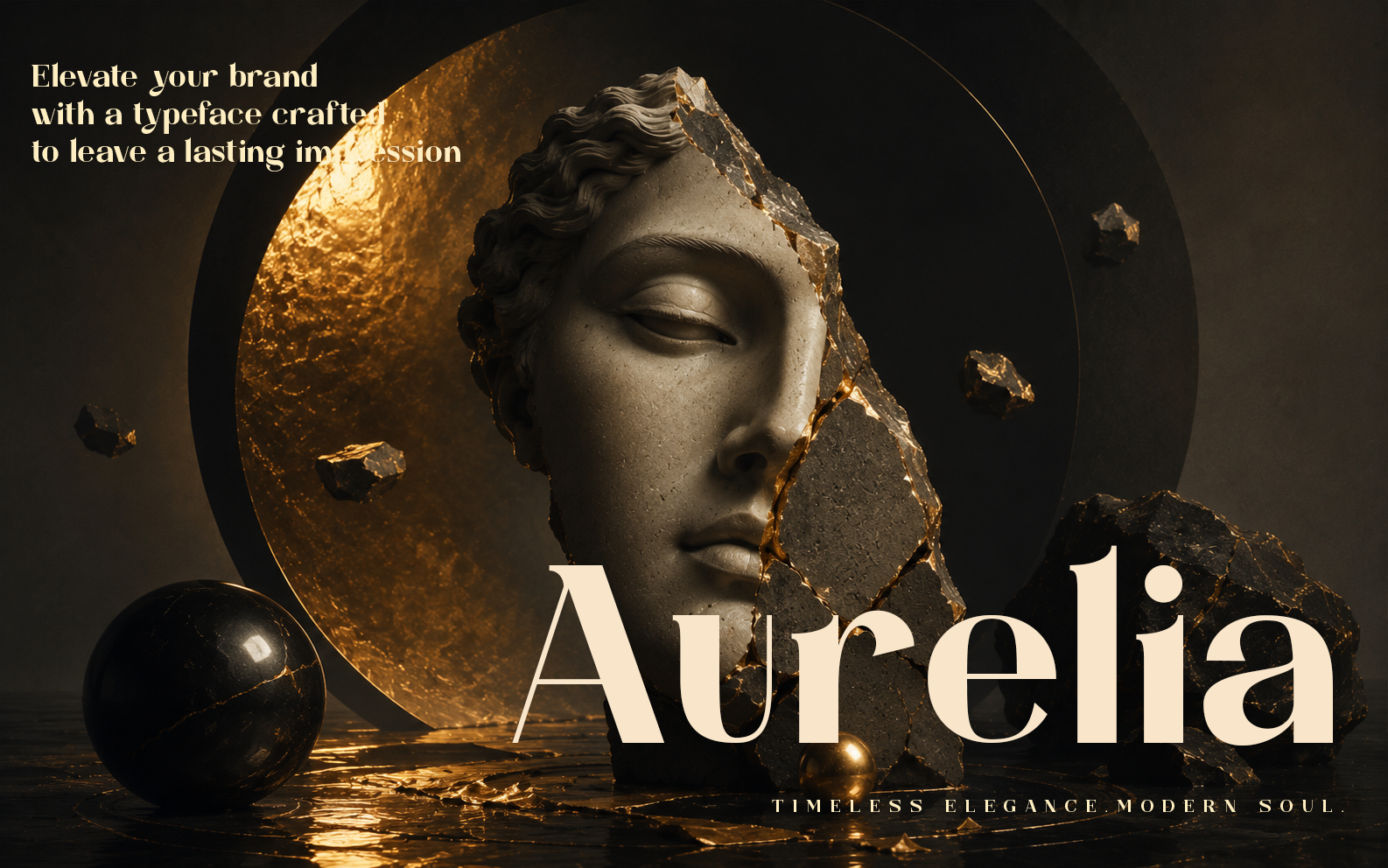
Aurelia font-Regular-01-26
Aurelia is a refined serif typeface where timeless elegance meets modern confidence. With its graceful curves, high-contrast strokes, and distinctive character details, Aurelia brings sophistication to branding, luxury packaging, editorial design, and premium marketing materials. Designed to command attention while maintaining effortless readability, it transforms every word into a statement of style. Elevate your brand with a typeface crafted to leave a lasting impression.